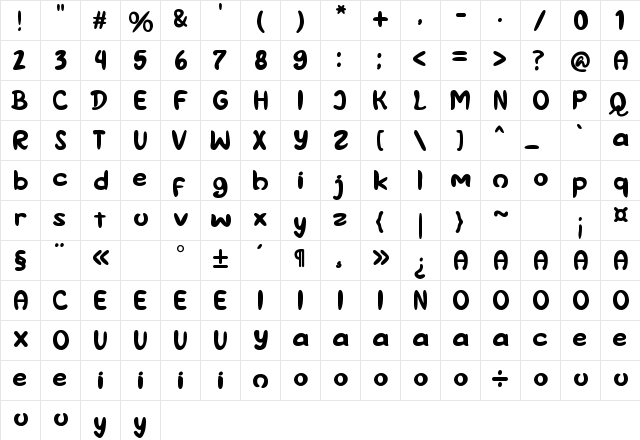
Lazy Repairedhos Regular
| Designer | Zkhai Creative |
Design Context for Lazy Repairedhos Typeface
Lazy Repairedhos is a composed and adaptable typeface that performs quietly and consistently across a wide range of design contexts.